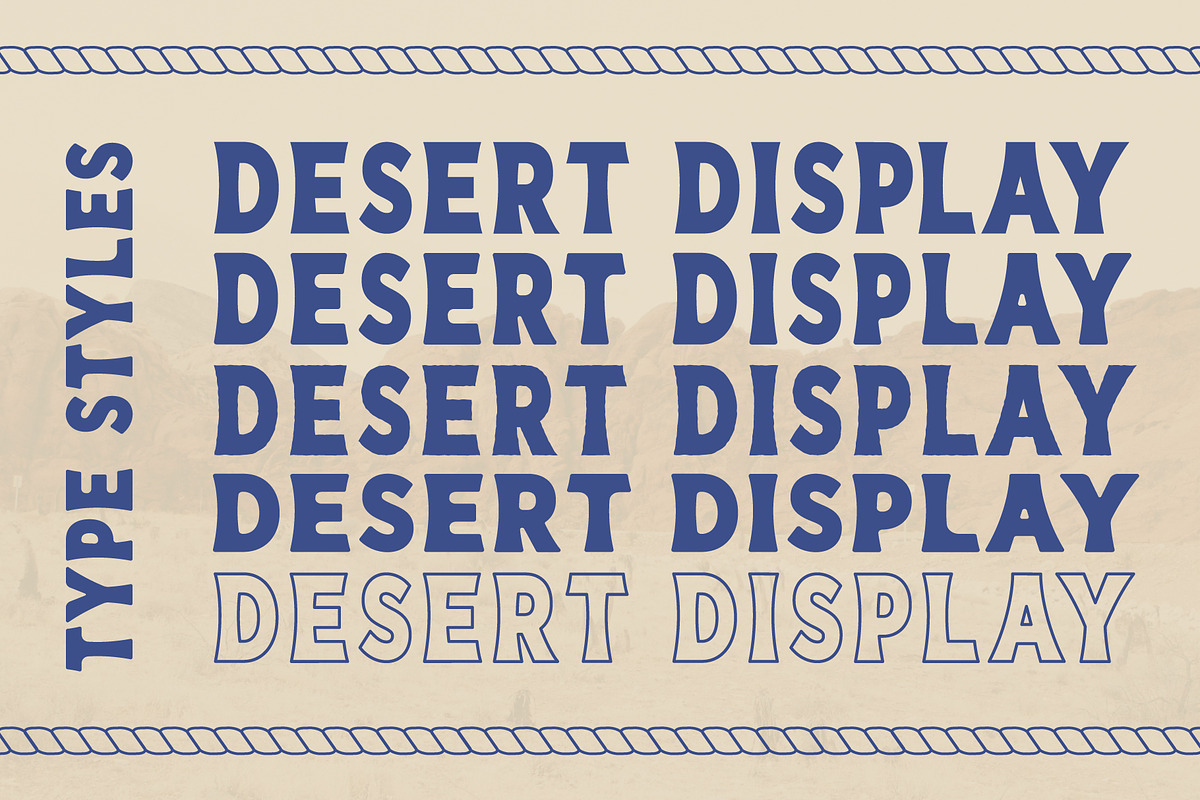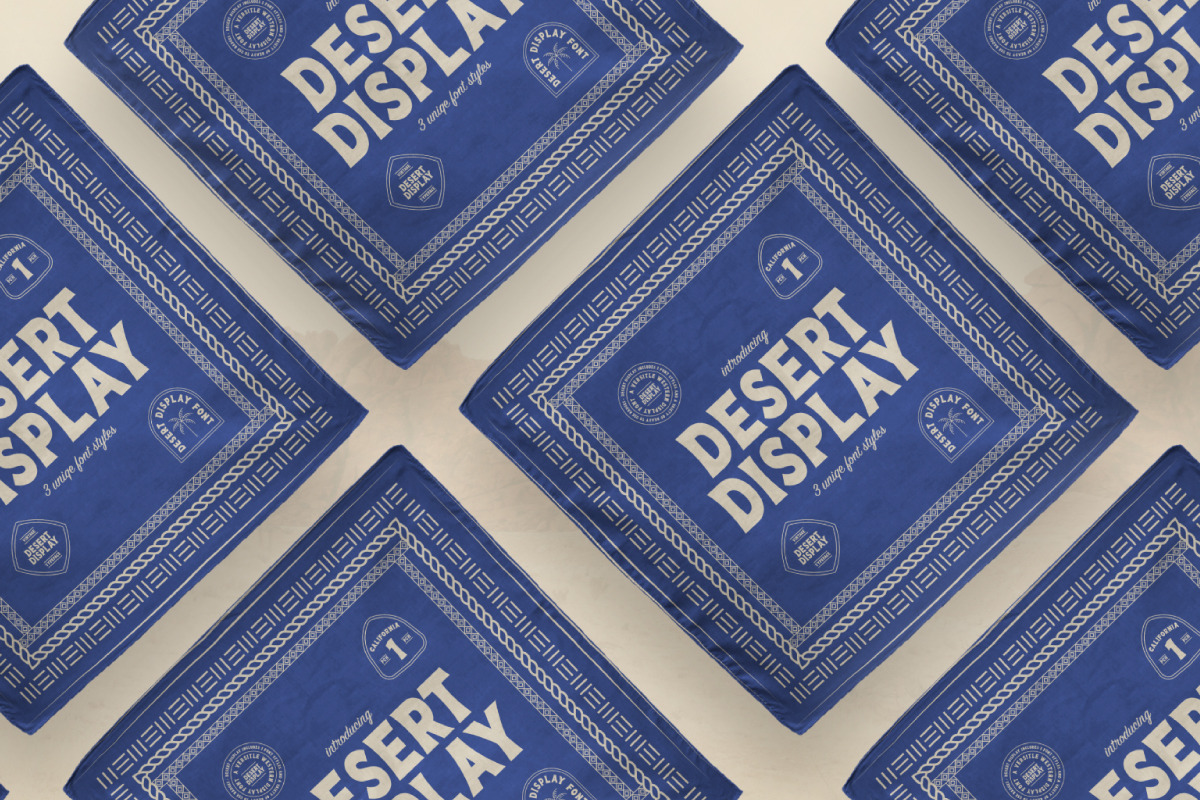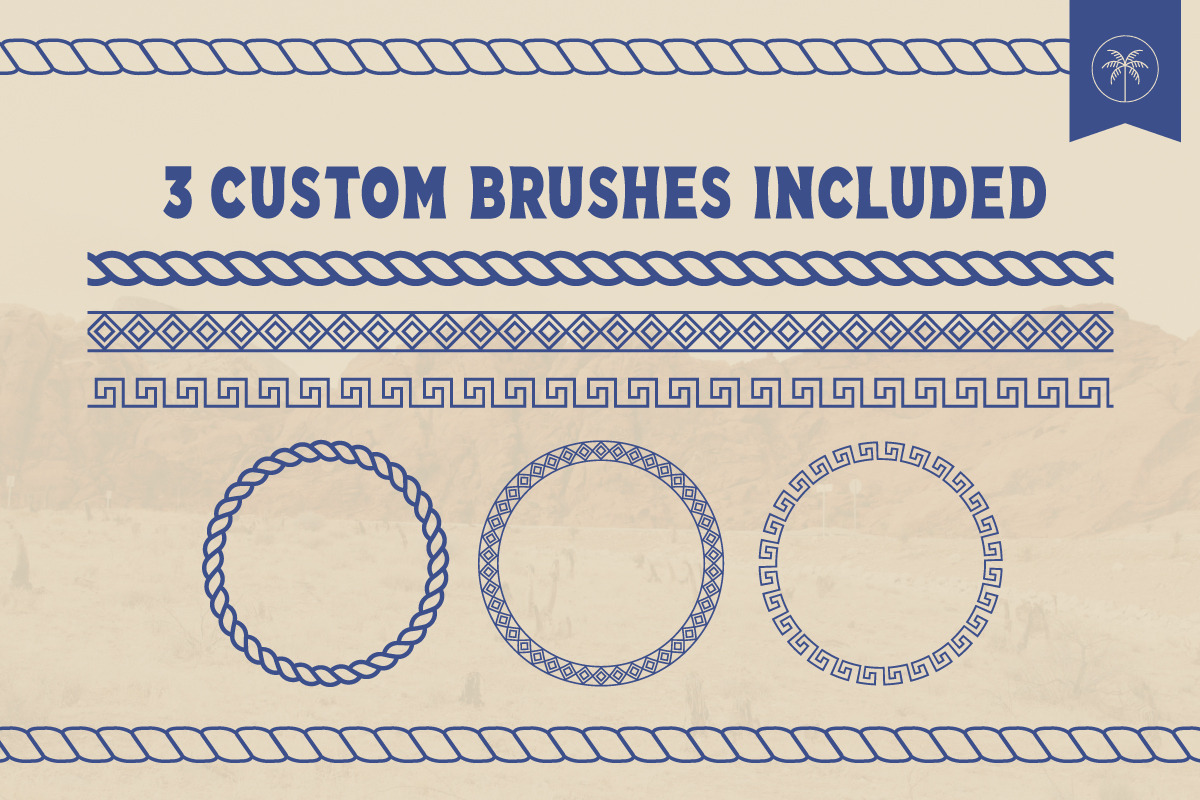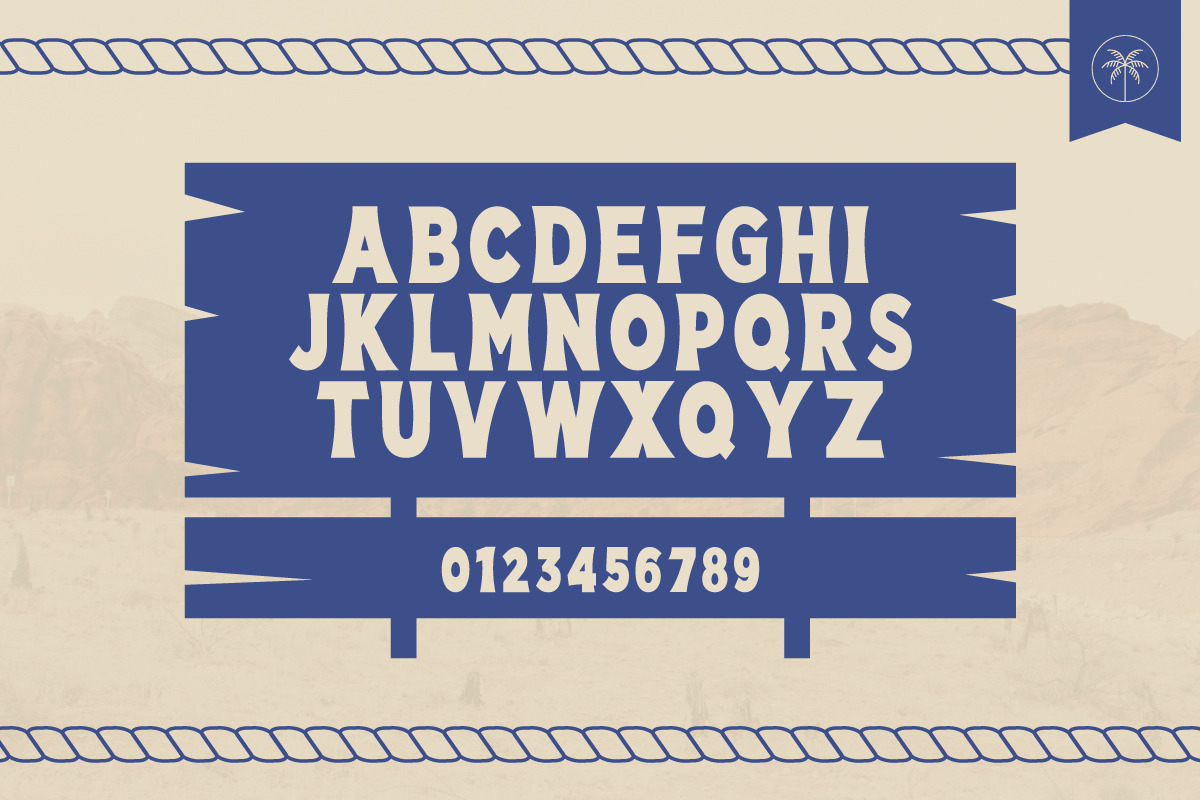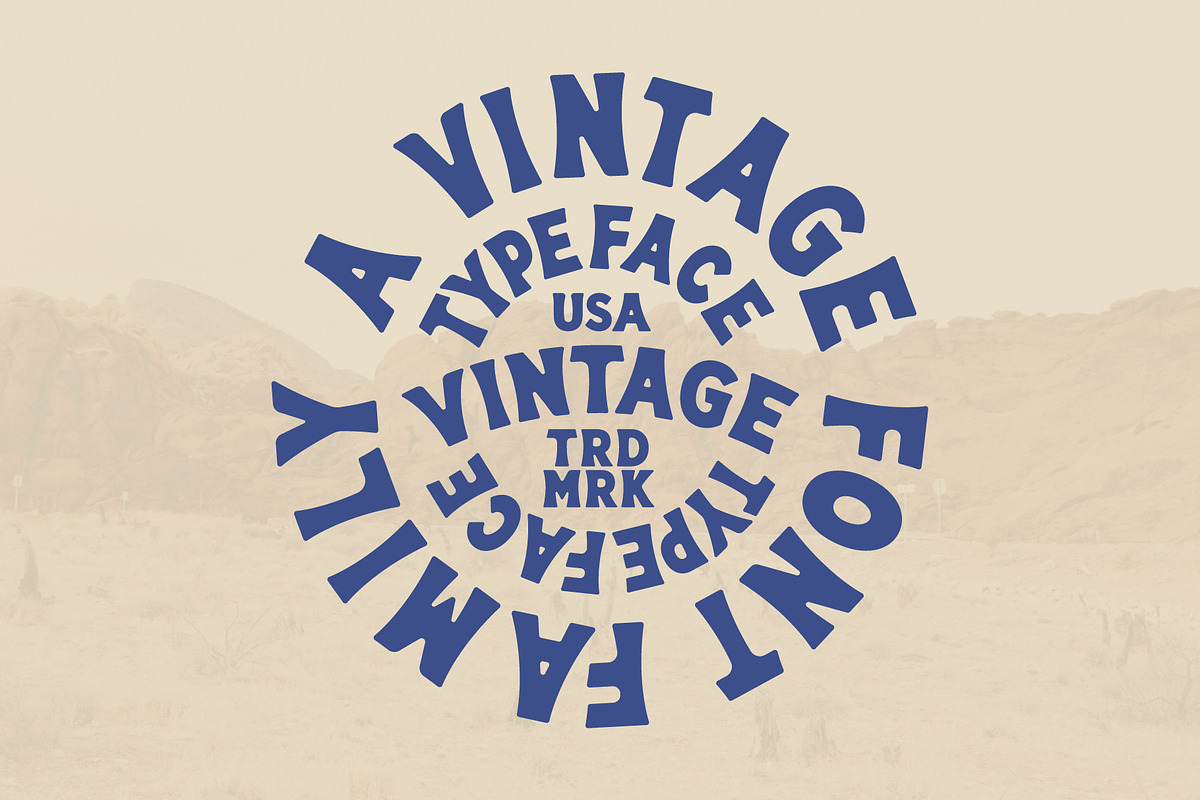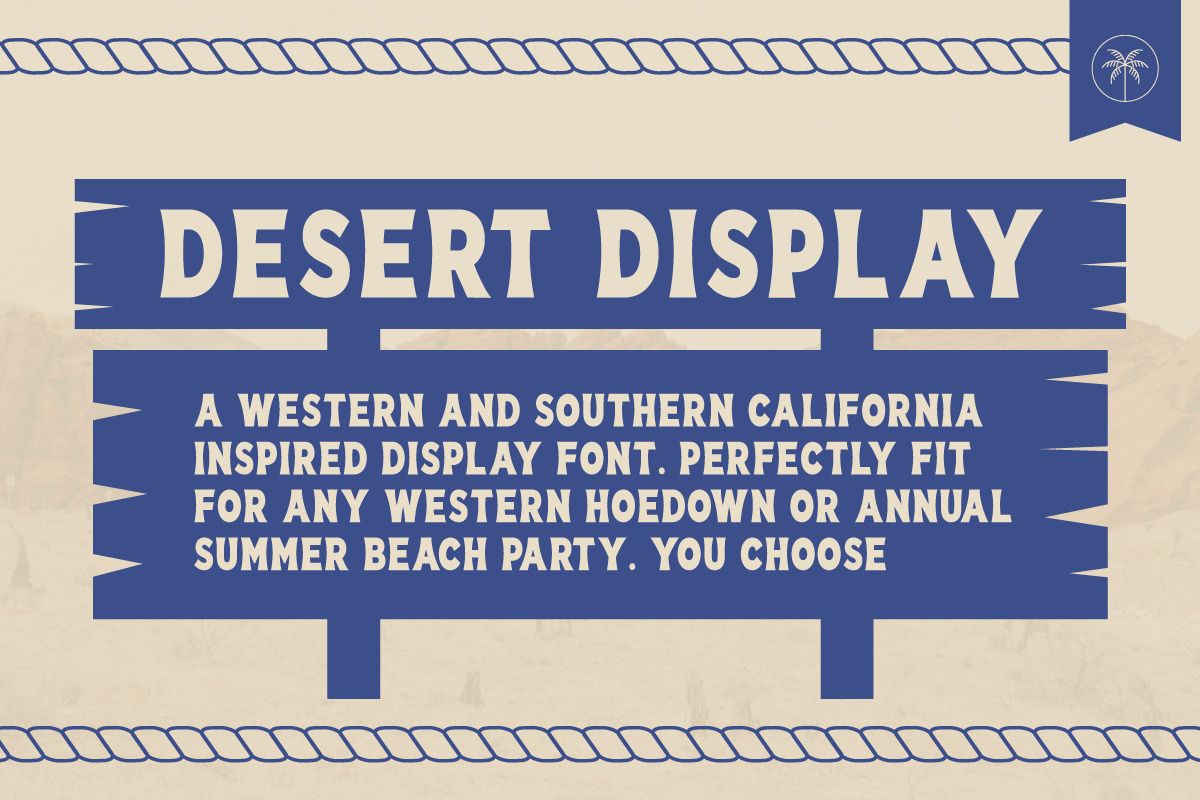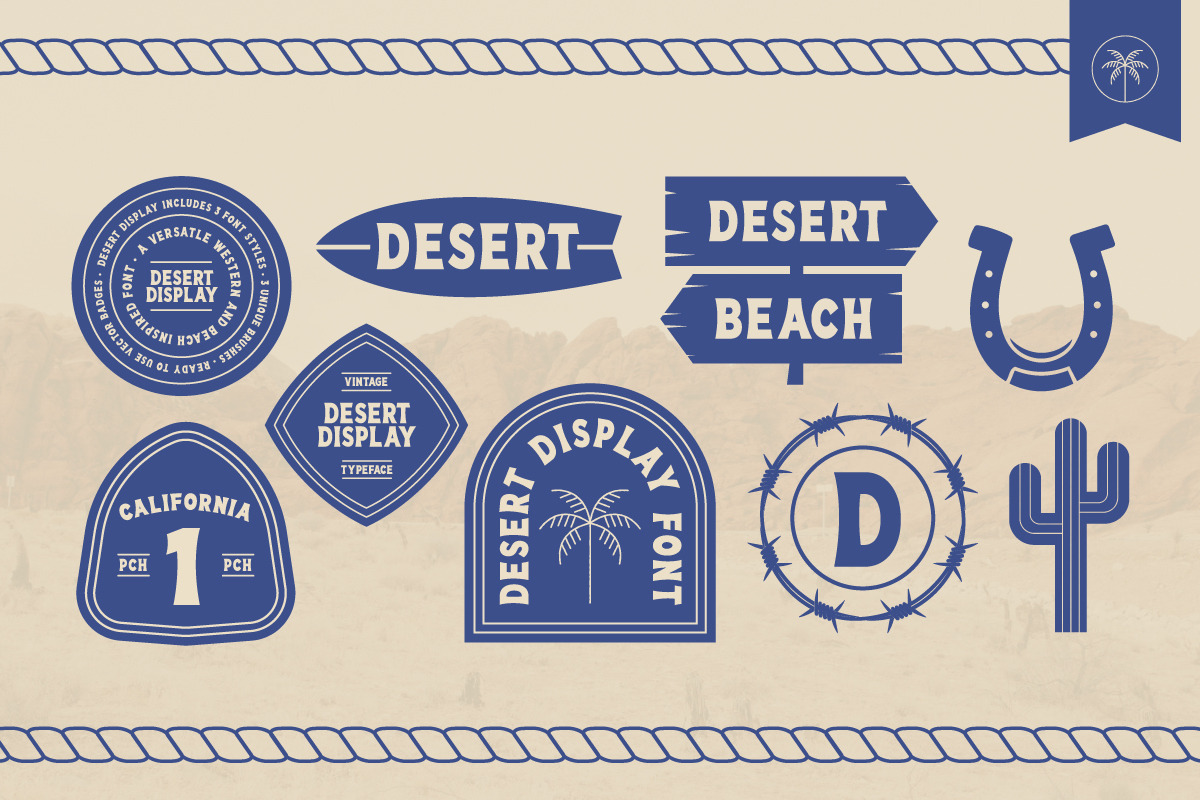
Desert Display | Western Font
UPDATE FALL 2021: 2 new font styles added. Desert Display Ink & Desert Display Ink Extended
Desert Display is a "western meets beach" inspired typeface. Desert display is packed with all that vintage and retro flair you must have on your next product, flyer, or poster. Complete with: